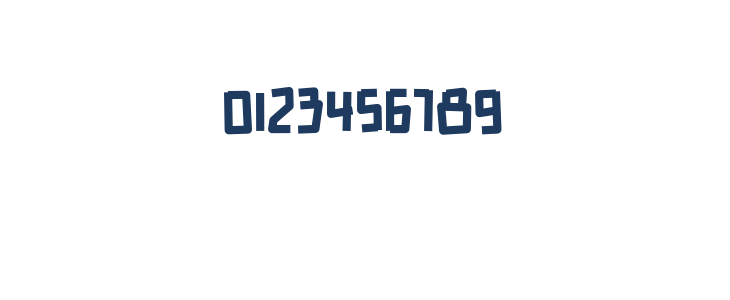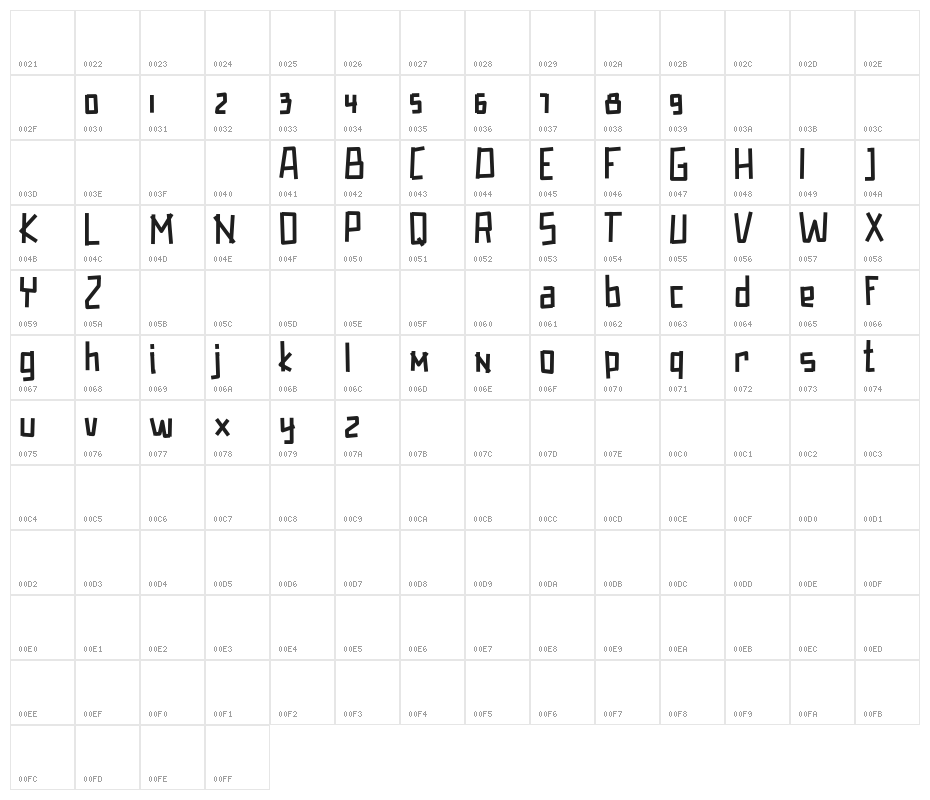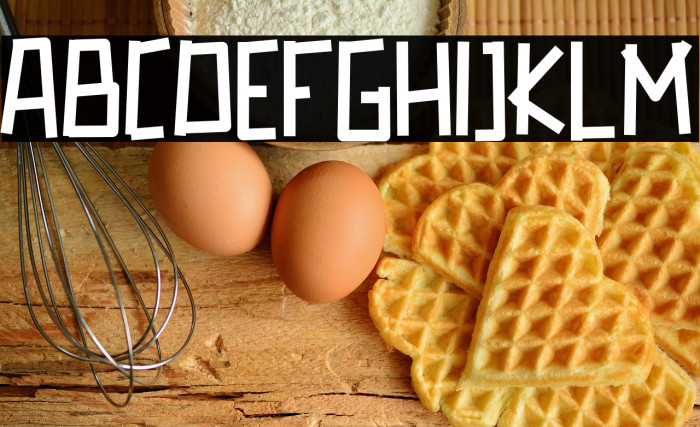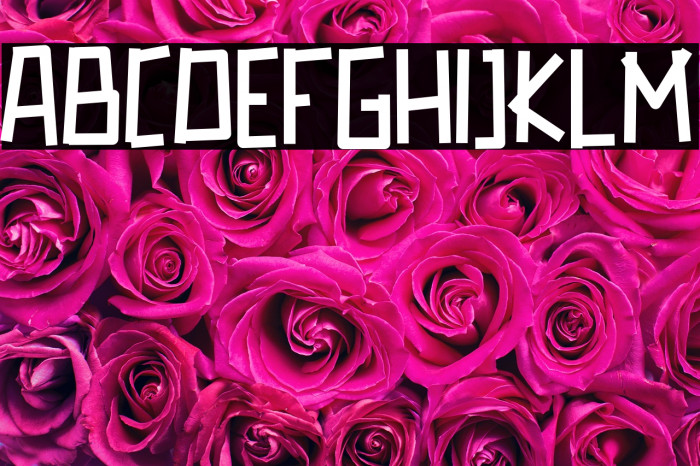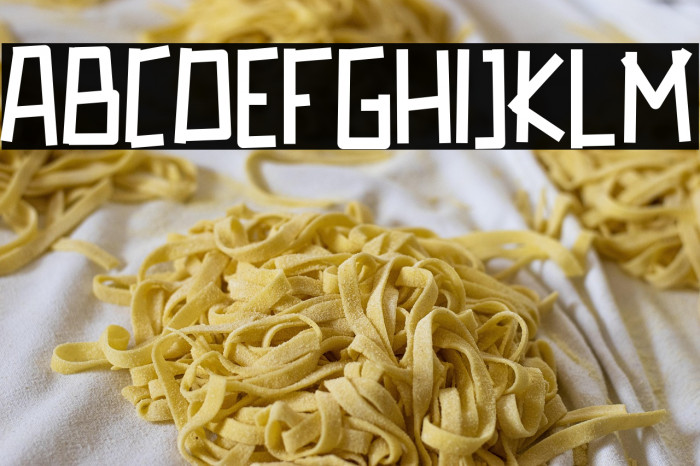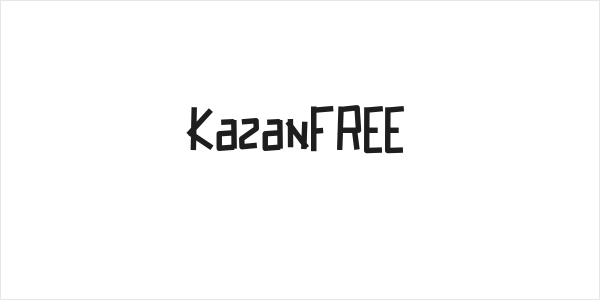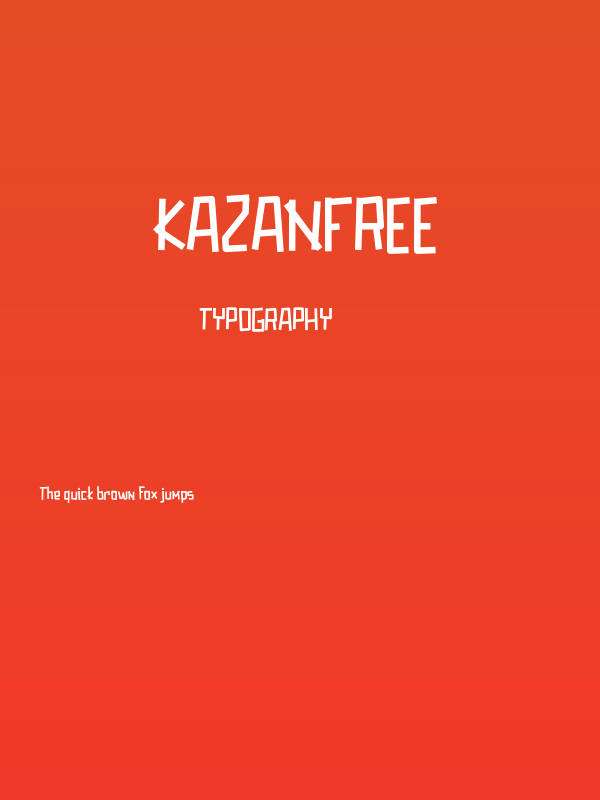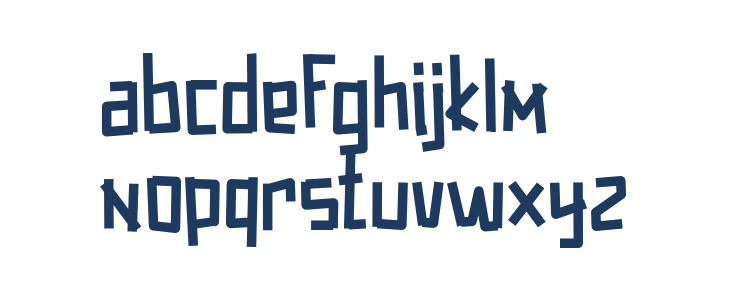
KazanFREE Font
KazanFREE Description
This font features a bold, angular design with a distinctly hand-drawn appearance. The characters are irregular and slightly tilted, giving it a dynamic and energetic feel. The uppercase and lowercase letters maintain a consistent style, with sharp edges and varying stroke widths that add a sense of movement. The numbers and special characters follow the same design principles, ensuring a cohesive look across all elements. This font's unique style makes it stand out, with a playful yet edgy vibe that can capture attention in various design contexts.
| Overall Style | Modern, Decorative |
| Proposed Projects | Ideal for posters, album covers, graffiti art, and any project needing a bold, edgy statement. |